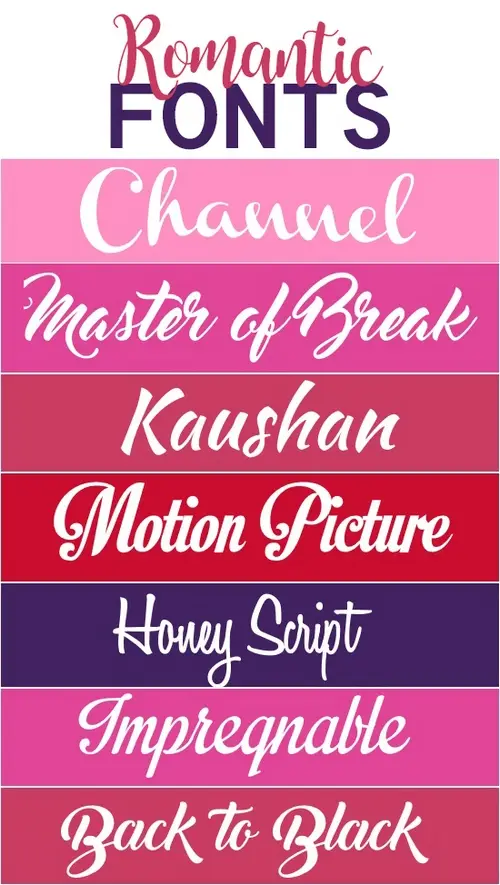
Romantic Fonts 3
Introducing the Romantic Fonts 3, a carefully curated collection of typefaces designed to evoke feelings of love and elegance. This set features a variety of font styles, including script, serif, and display fonts, perfect for all your romantic design needs.
• Multiple font weights and styles
• Unique and artistic letterforms
The Romantic Fonts 3 collection includes:
• Elegant scripts for invitations and greeting cards
• Stylish serifs for branding and logos
• Creative display fonts for posters and social media
Utilize these fonts for wedding invitations, love letters, branding projects, and any other creative work that requires a touch of romance.